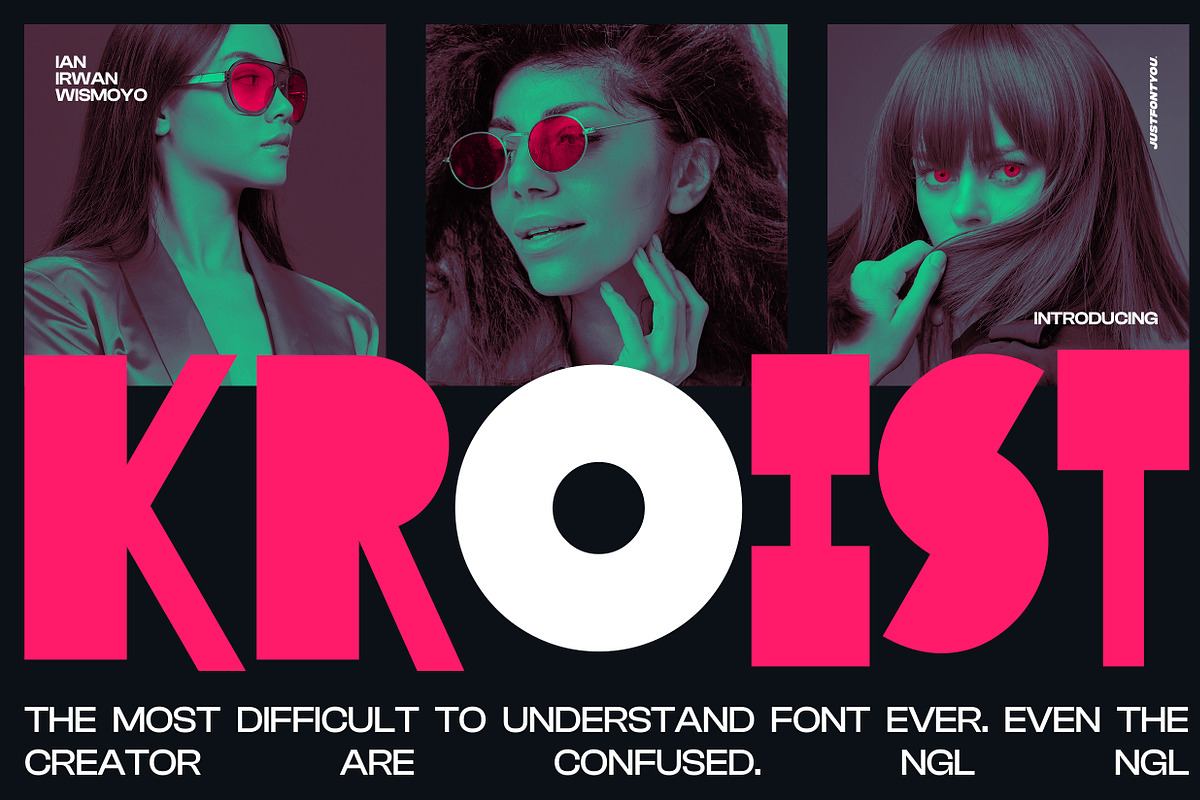
Kroist Experimental Pop Fonts Free Download is a bold and creative typeface that breaks the rules of traditional typography. With its quirky shapes, playful proportions, and eye-catching design, Kroist is perfect for music posters, album covers, streetwear branding, editorial layouts, and any project that needs a blast of pop-culture energy.
This font doesn’t just speak—it shouts. Inspired by abstract art, retro-futurism, and graphic rebellion, Kroist gives your designs a fresh, electric personality. Its experimental vibe makes it ideal for designers who love to take risks and push visual boundaries.
Whether you're creating for print or digital, Kroist guarantees an unforgettable first impression.